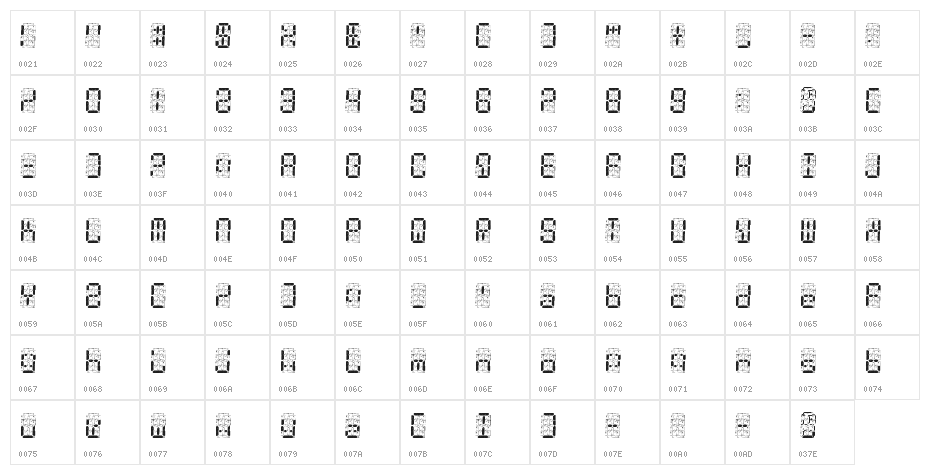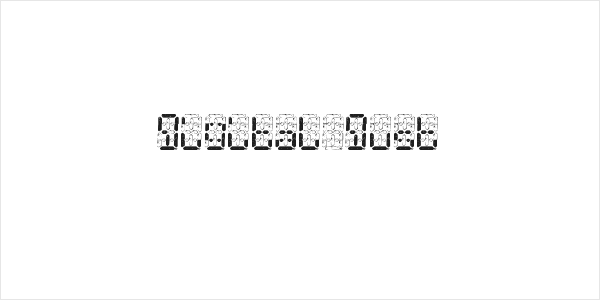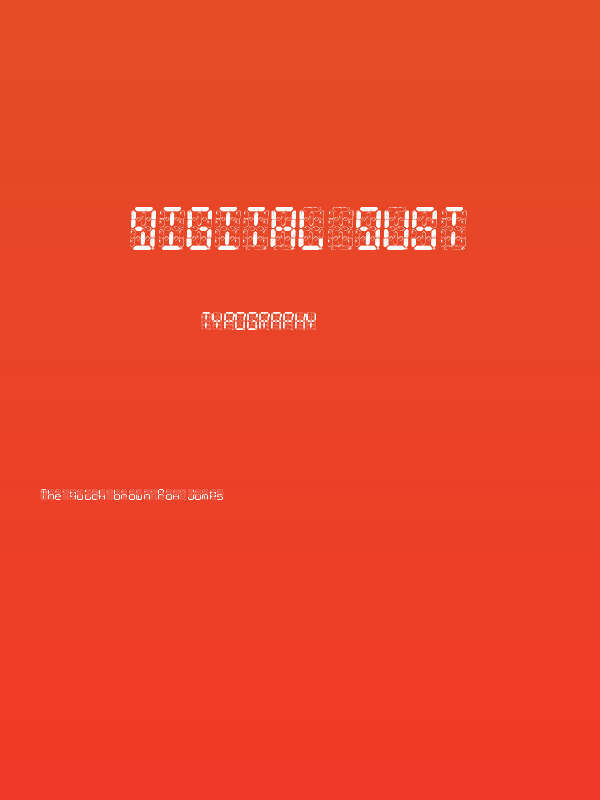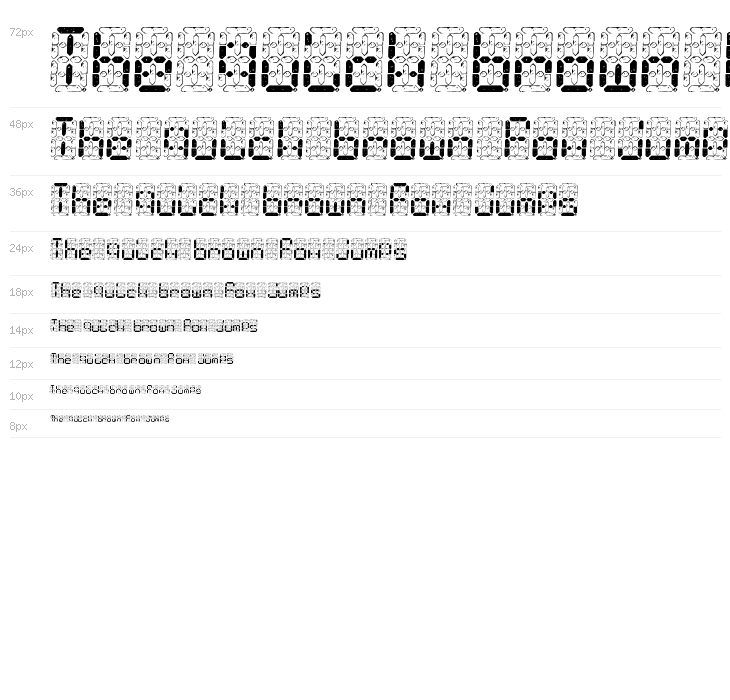
Digital Dust Font
Digital Dust Description
This font features a unique digital style reminiscent of old-school digital displays. Each character is composed of segmented lines, creating a pixelated effect that is both retro and futuristic. The design is highly geometric, with sharp angles and a structured layout, making it ideal for digital-themed projects. The characters are evenly spaced, maintaining a consistent visual rhythm across the typeface. This font is particularly effective in conveying a sense of technology and modernity, while also evoking nostalgia for early digital devices. The boldness of the characters ensures readability, even at smaller sizes, making it versatile for various applications.
| Proposed Projects | Perfect for digital interfaces, retro-themed posters, tech company logos, and video game graphics. |